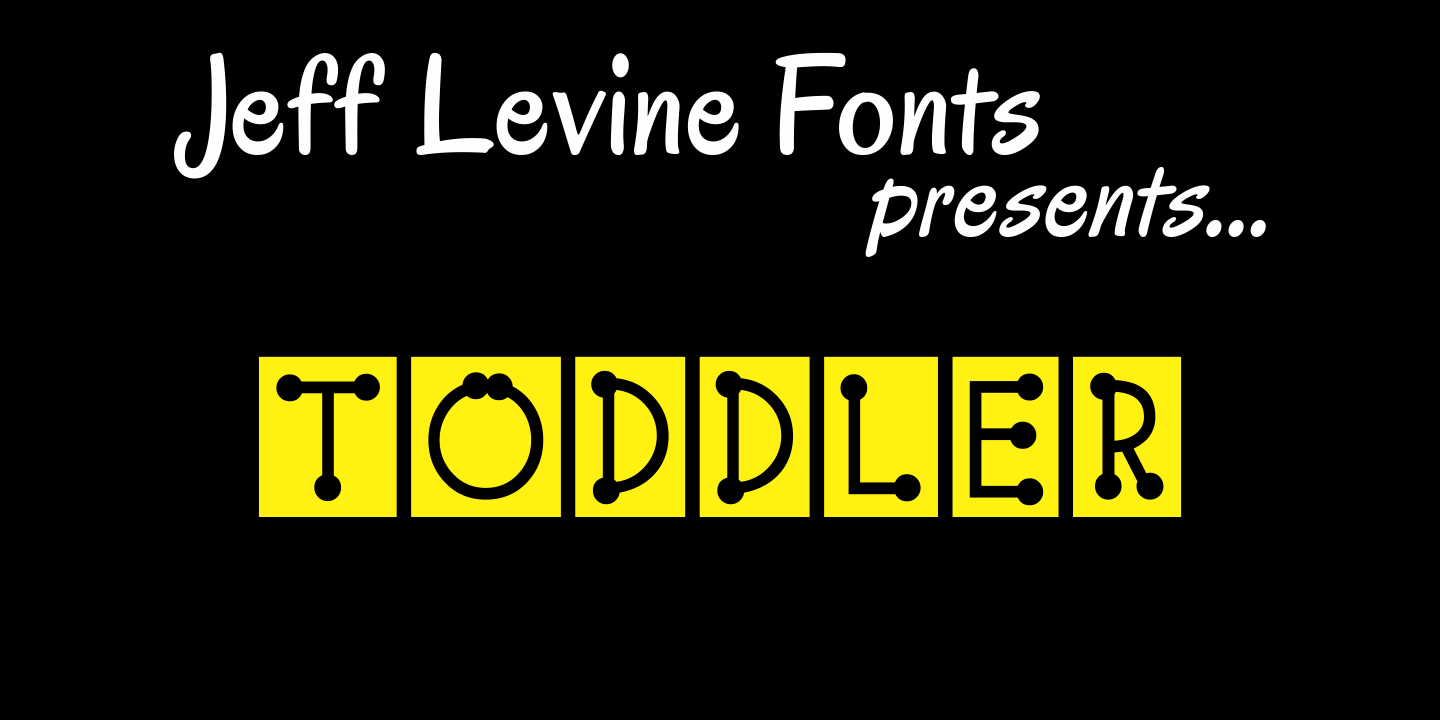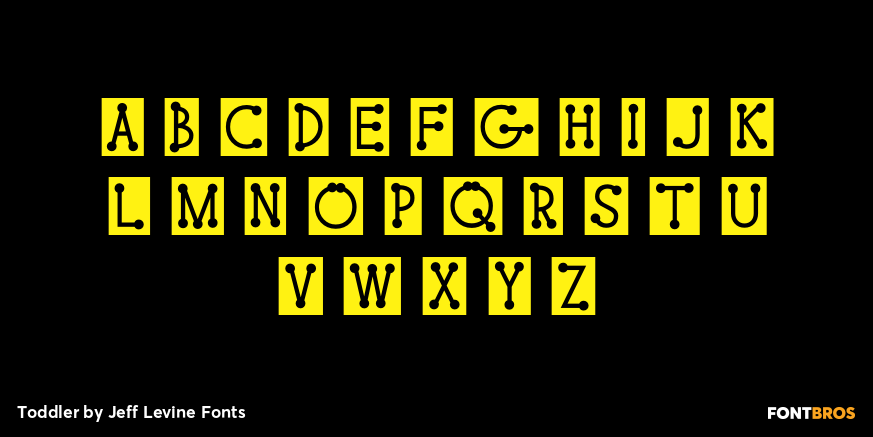
Toddler
The fun, lighthearted appeal of Toddler JNL will bring out the inner child in you. Perfect for any layout or project that has to do with newborns, toddlers, preschool, playtime or anything related to little ones.
There's a fairly complete character set - and two different width blank boxes on the brace keys - which can be used as spaces between words.